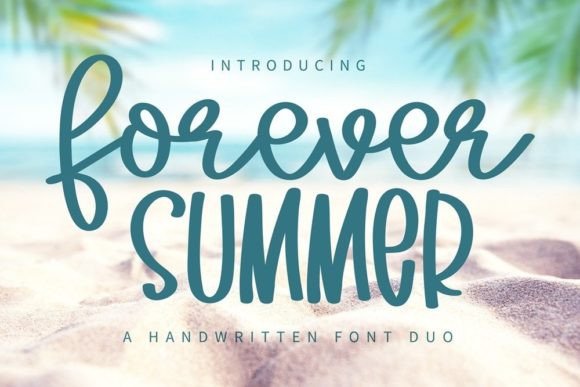
Forever Summer Font
Forever Summer is a sweet and cute handwritten font duo. Fall in love with its incredibly versatile style and use it to create gorgeous wedding invitations, beautiful stationery art, eye-catching social media posts, and much more!